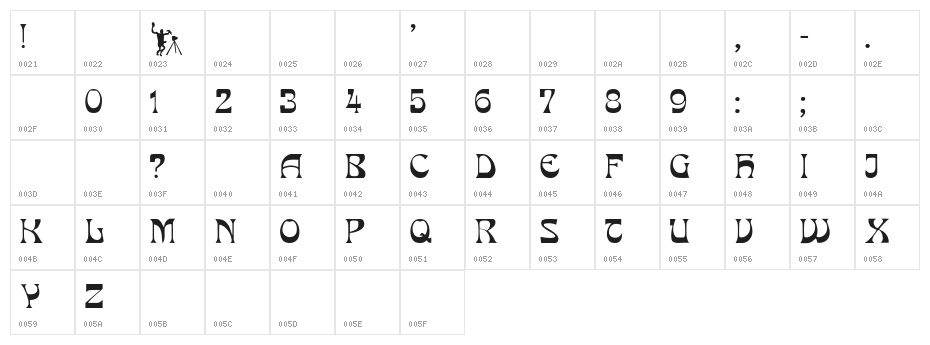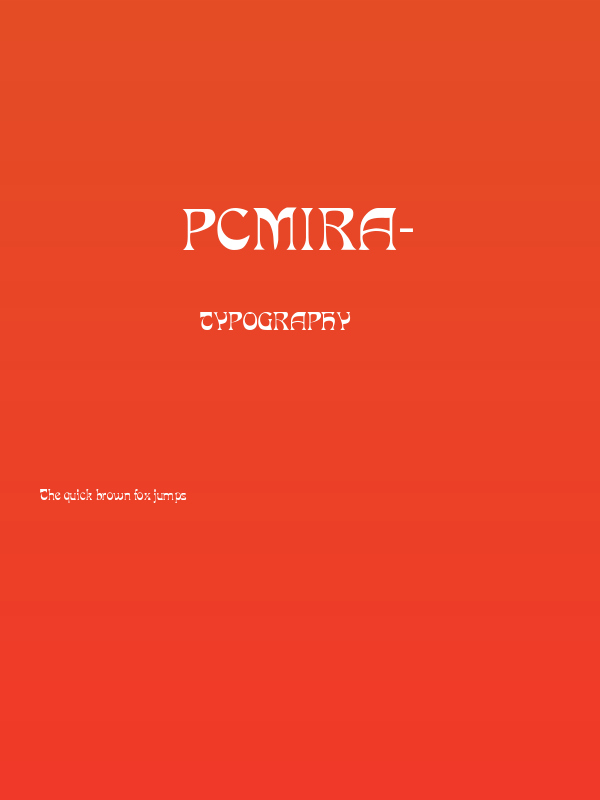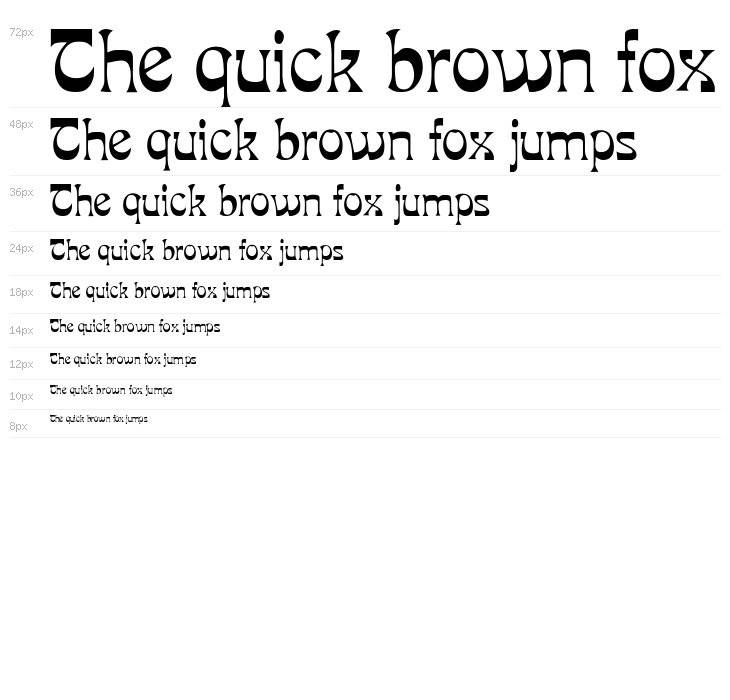
PCMIra- Font
PCMIra- Description
This font features a bold and dramatic style with a distinct medieval or gothic influence. The uppercase letters are characterized by sharp, angular serifs and strong vertical lines, giving them a commanding presence. The lowercase letters maintain this boldness but incorporate more curves, adding a touch of elegance. The numerals are consistent with the overall style, featuring similar angular cuts and bold strokes. The special characters are uniquely stylized, fitting seamlessly with the font's aesthetic. This font is ideal for projects that require a historical or fantasy theme, offering a sense of grandeur and tradition.
| Proposed Projects | Ideal for fantasy book covers, historical event posters, or themed branding projects. |